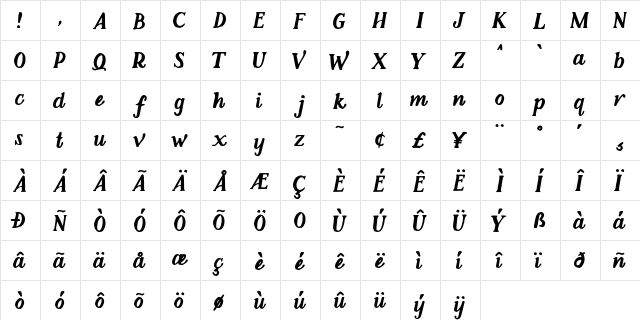
Love, Olivia Regular
Design Context for Love, Olivia Typeface
Love, Olivia offers clean, dependable letterforms without strong stylistic allegiance, making it a practical choice for designers who need flexibility.
Pro Tip: Use Love, Olivia in both headline and body roles to test its range before committing to a single application.